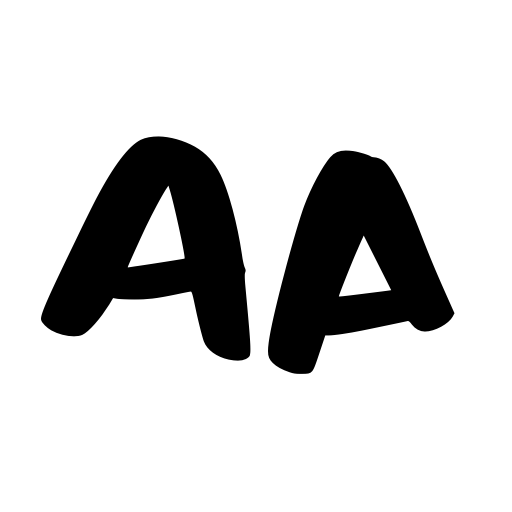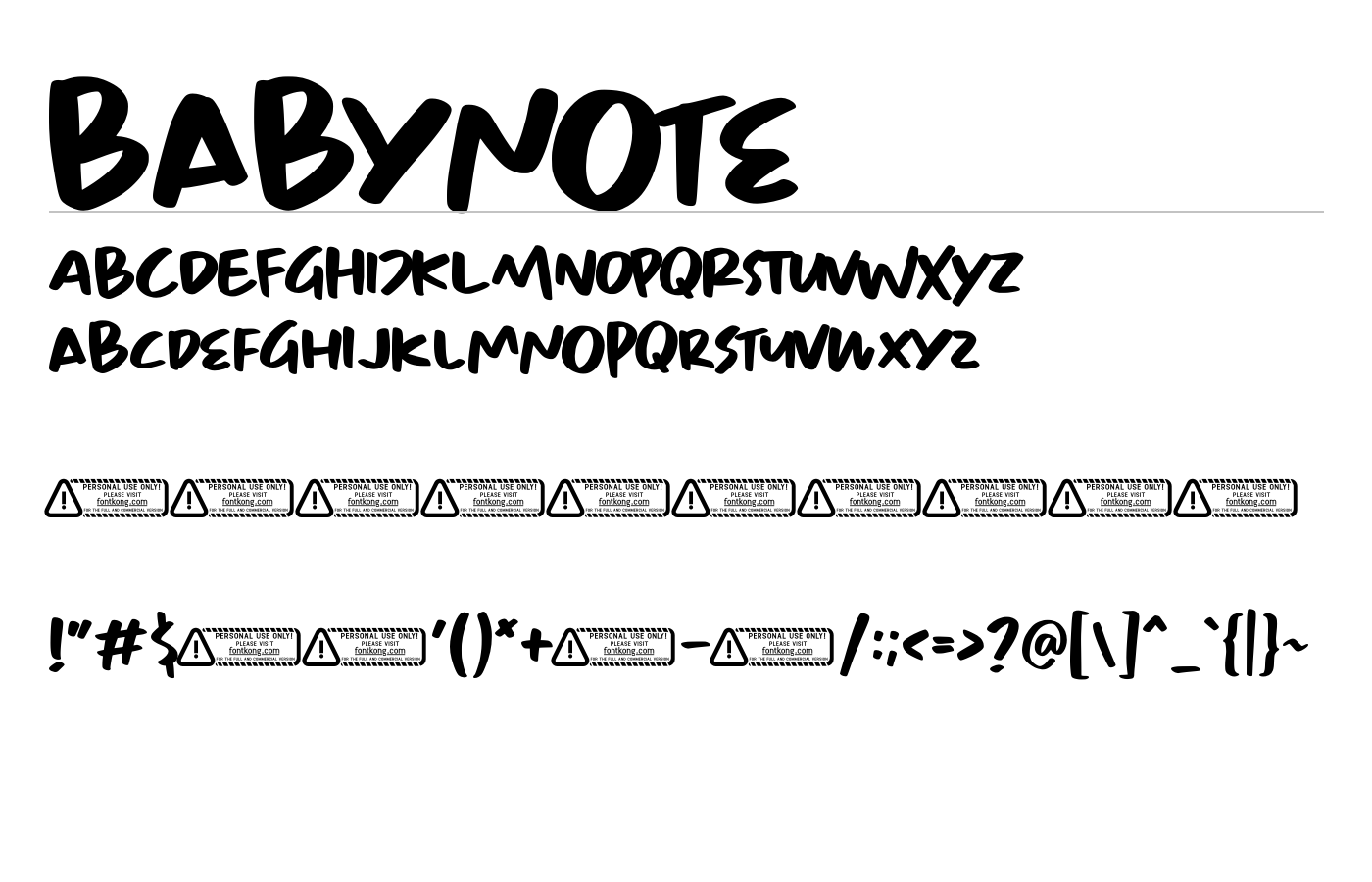
Babynote is a playful, bold sans serif font that mimics casual handwriting with a lively, informal feel. Its thick, uneven strokes and rounded shapes give it a friendly and approachable personality, making it ideal for children's products, creative projects, and fun branding. This font works best in headlines, invitations, and packaging where a cheerful, hand-drawn touch is desired.
Babynote Font
About Babynote Font